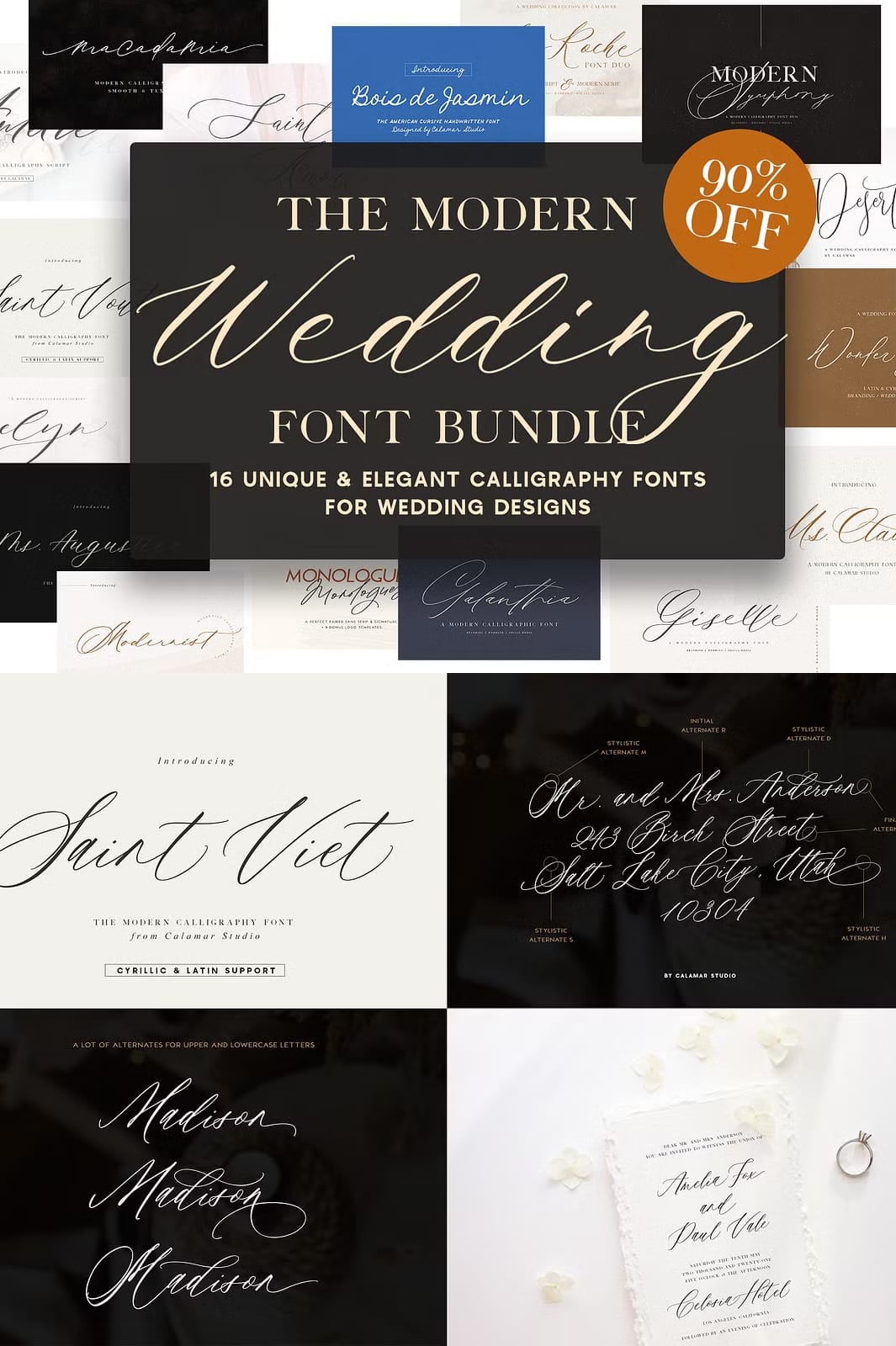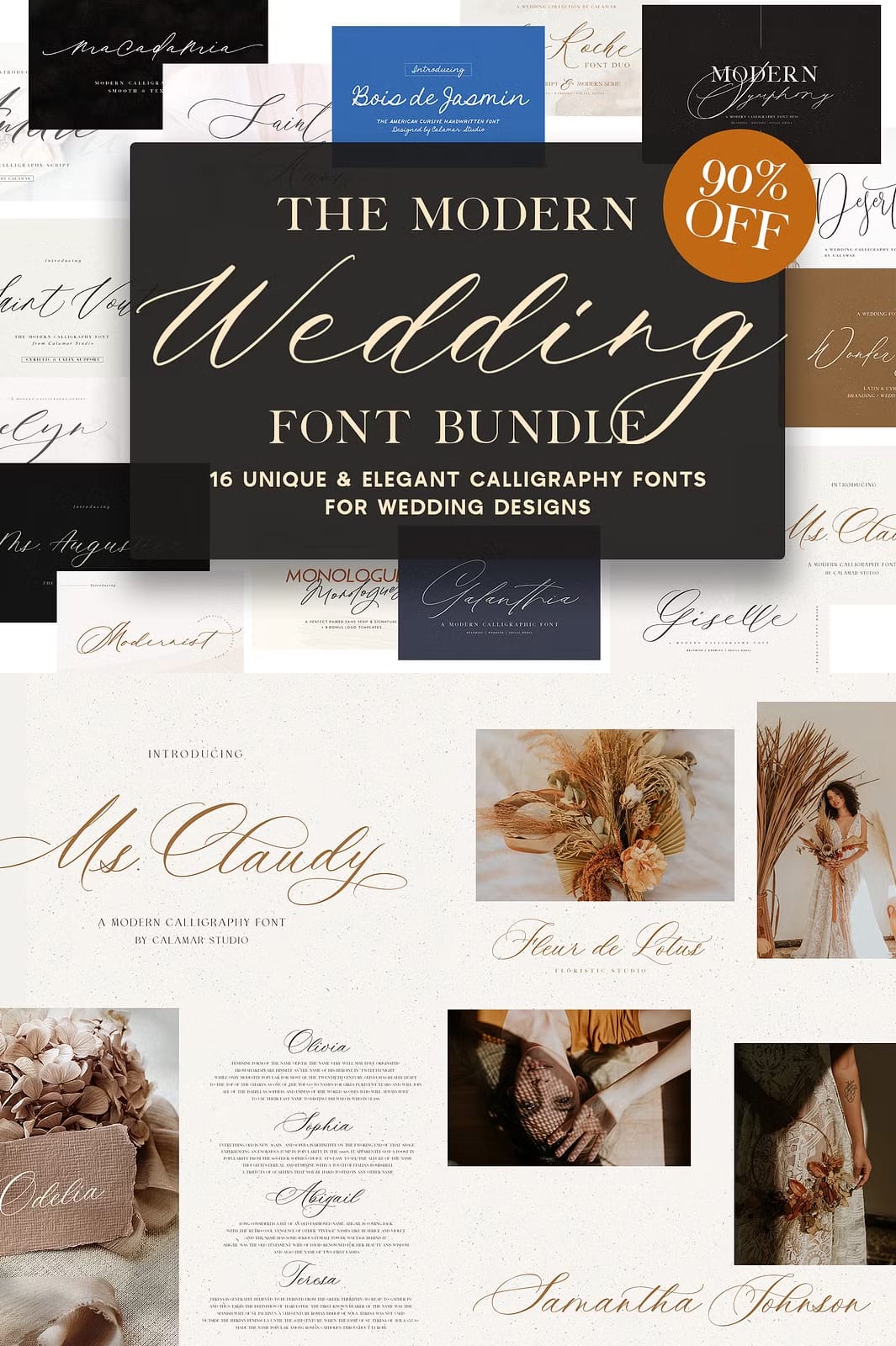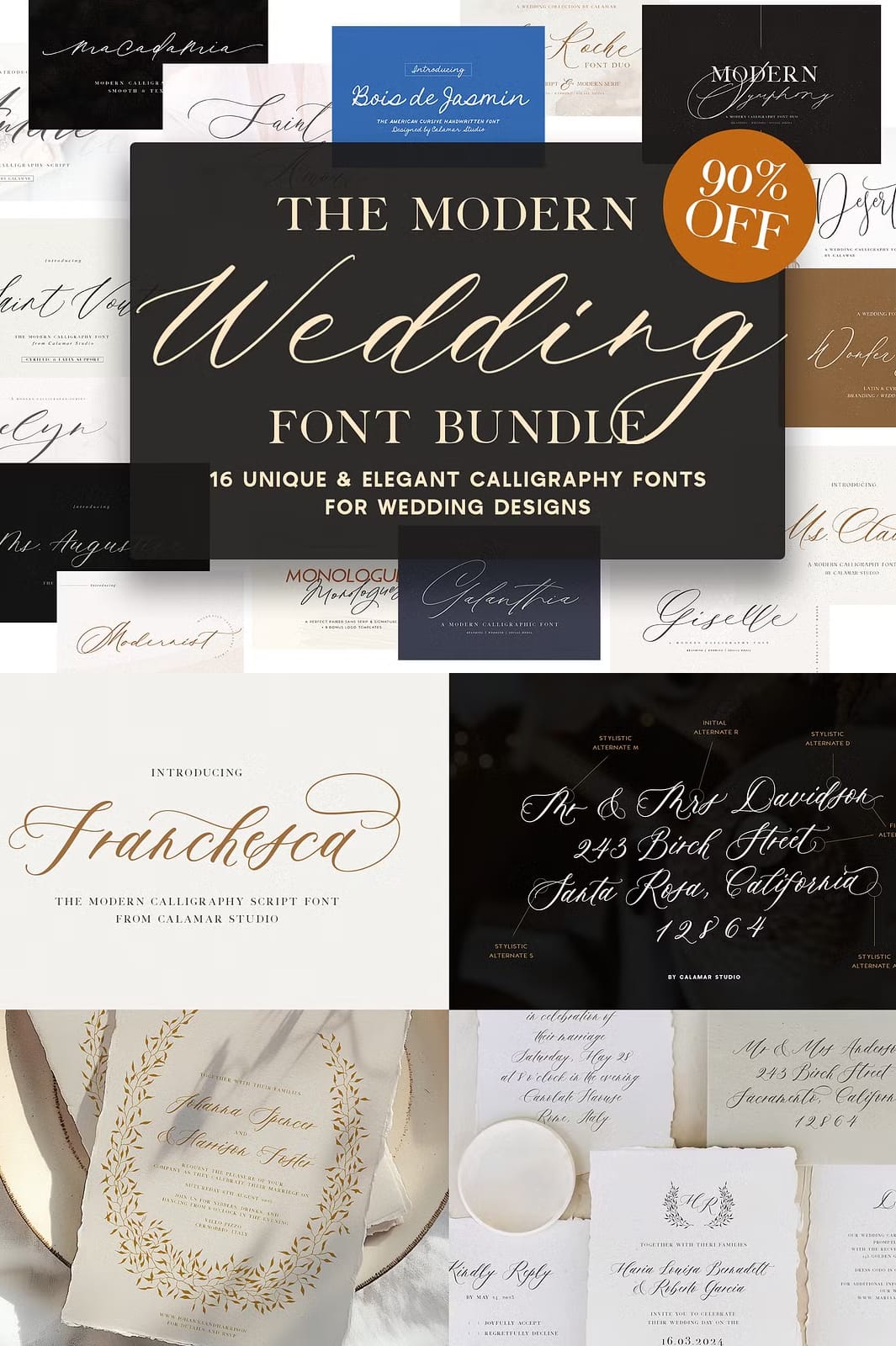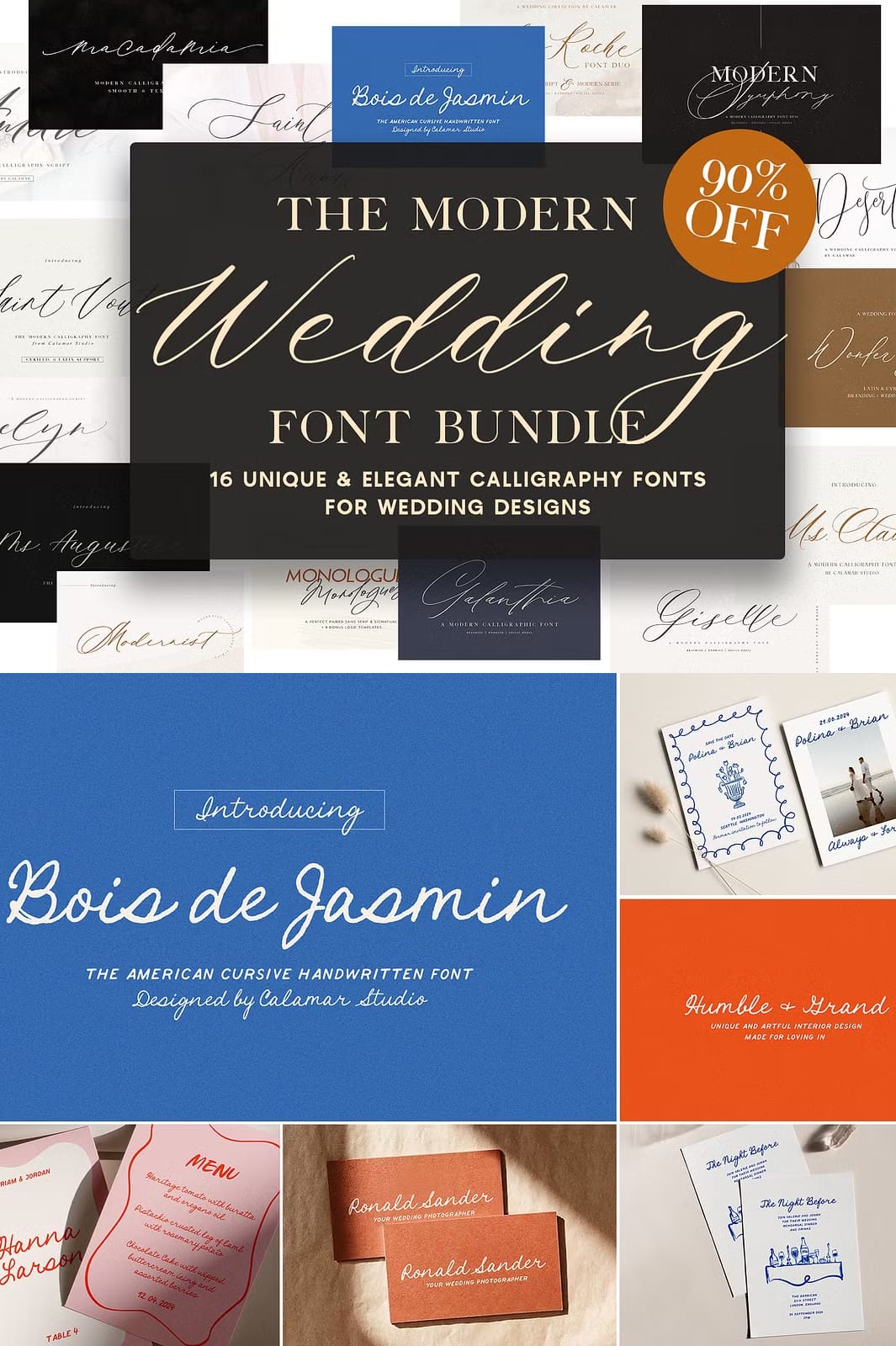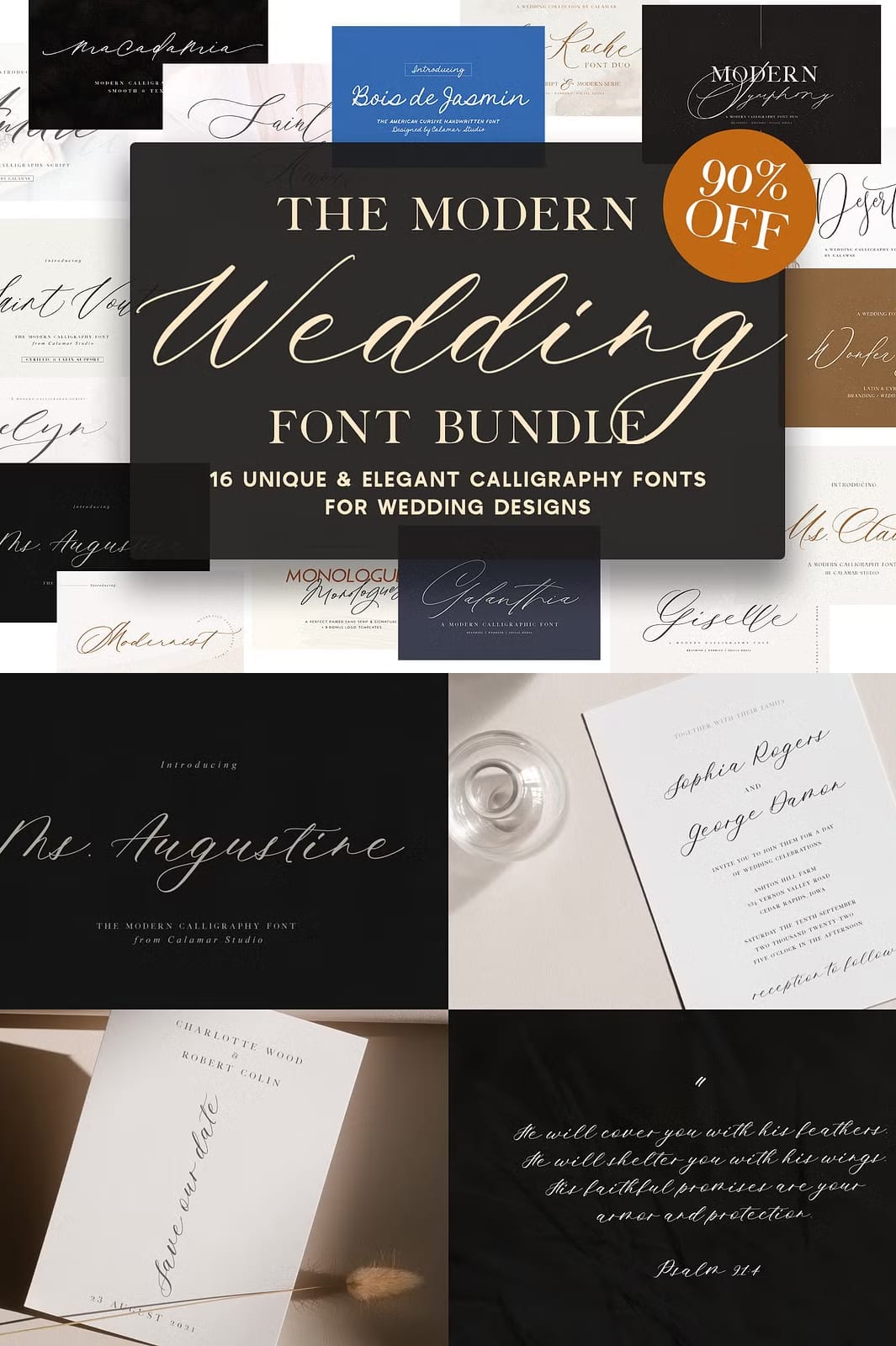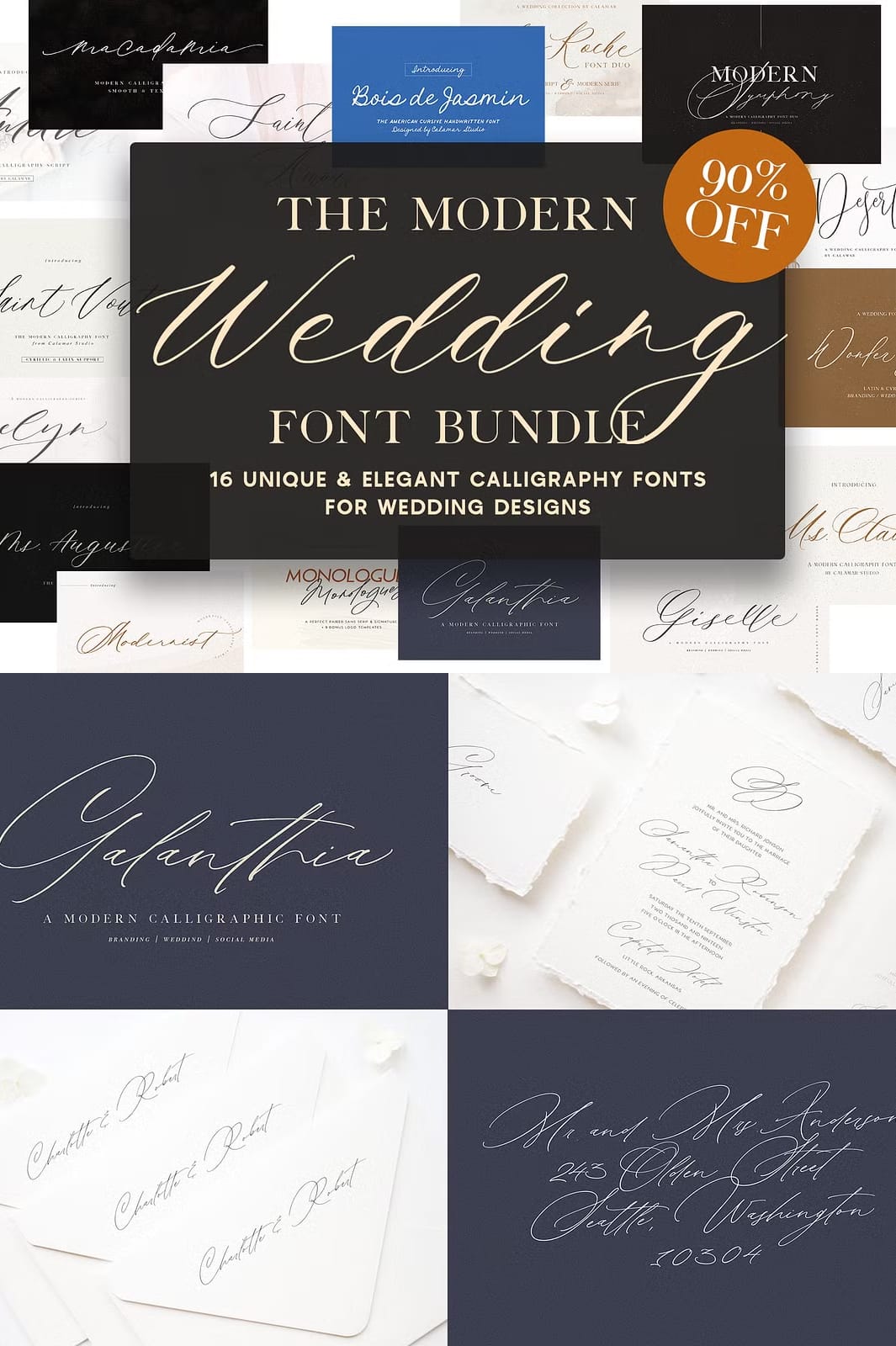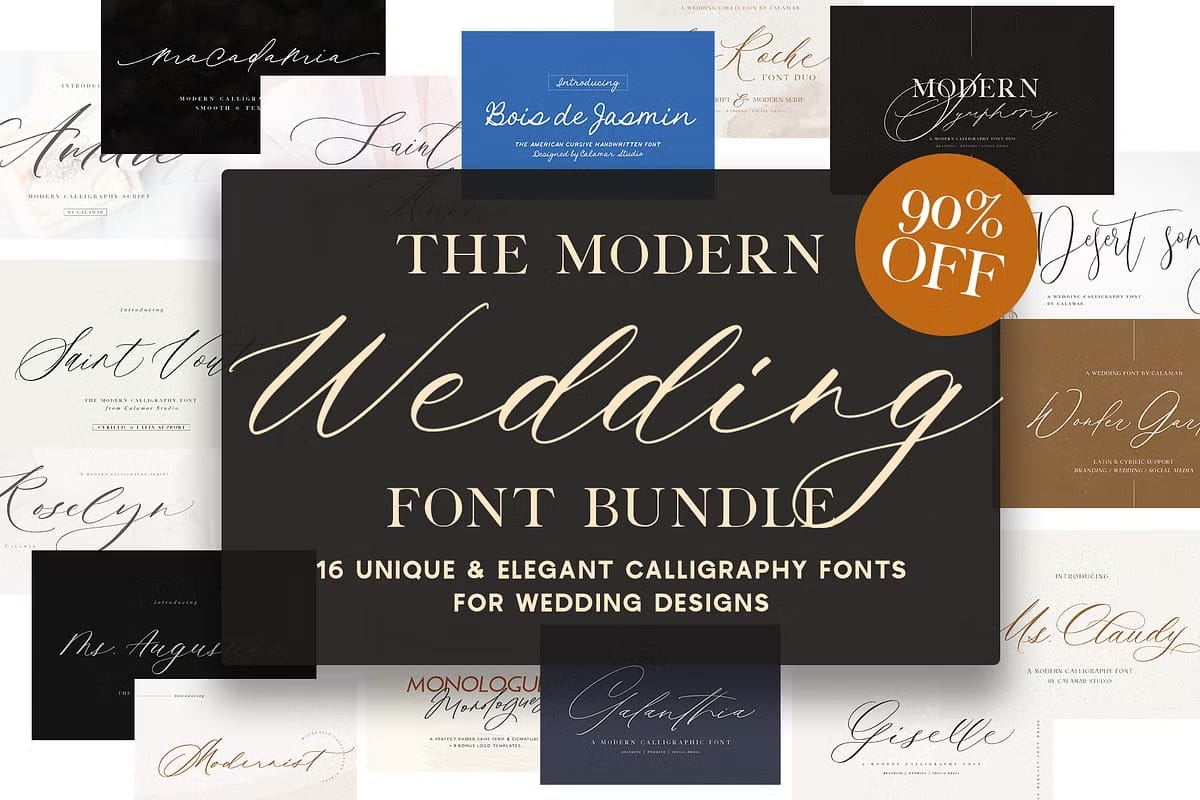
The Wedding Calligraphy Font Bundle
It’s perfect for a wedding invitations, save the date cards, feminine branding or personal gift cards. This awesome bundle will save you 90% off the regular price.